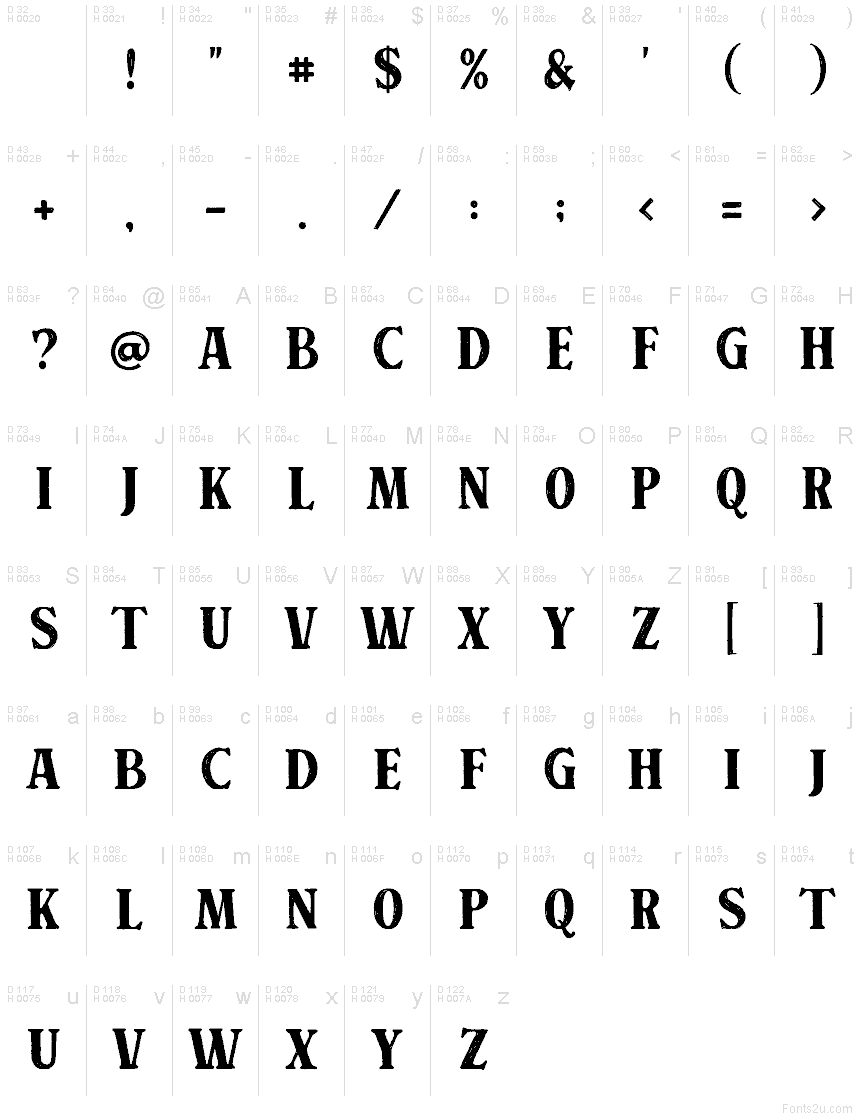
Crafter Signature Serif Regular
Crafter Signature Serif font by Blankids is a free bold eroded display serif font. Its defining trait is the hand-worn texture: crisp verticals meet scuffed, woodblock-like edges that look rubbed by time and ink. The sharp, slightly flared serifs punch through the grit, giving headlines a rugged authority without losing clarity. Set large and it feels like a vintage stamp—chunky, tactile, and built to be seen.
Using Crafter Signature Serif, your titles carry a heritage vibe that shines on craft packaging, coffee or whiskey labels, rustic signage, vintage posters, apparel graphics, and badge-style logos. The consistent erosion creates rhythm across words, so you get character without chaos. Pair this free font with a clean geometric sans for body copy, and add a touch of letterspacing when you need extra air.
Crafter Signature Serif